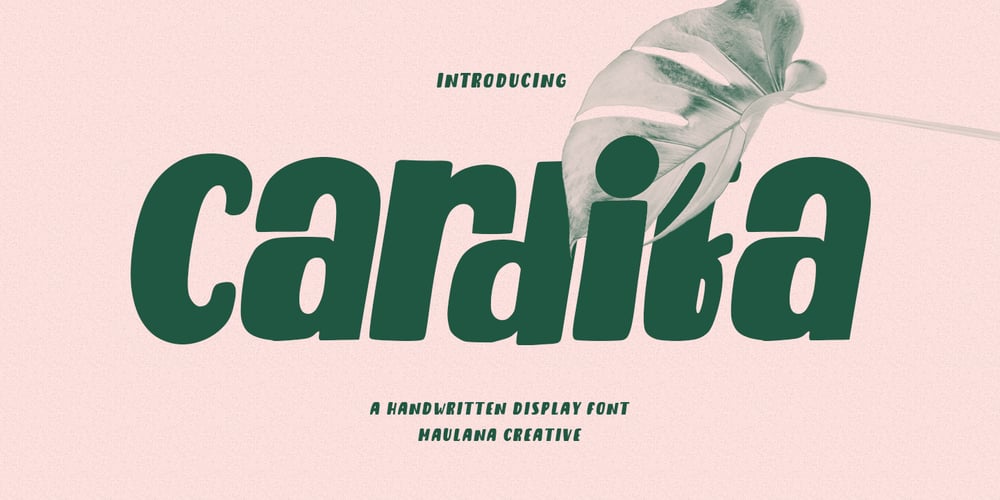
MC Cardifa
MC Cardifa font
MC Cardifa Font Family was designed by Gilang Maulana and published by Maulana Creative. MC Cardifa contains 1 styles and family package options. Cardifa is a casual handwritten script font. With bold stroke, fun character with a bit of ligatures and alternates. To give you an extra creative work. Cardifa font support multilingual more than 100+ language. This font is good for logo design, Social media, Movie Titles, Books Titles, a short text even a long text letter and good for your secondary text font with sans or serif. Make a stunning work with Cardifa font. Cheers, Maulana Creative